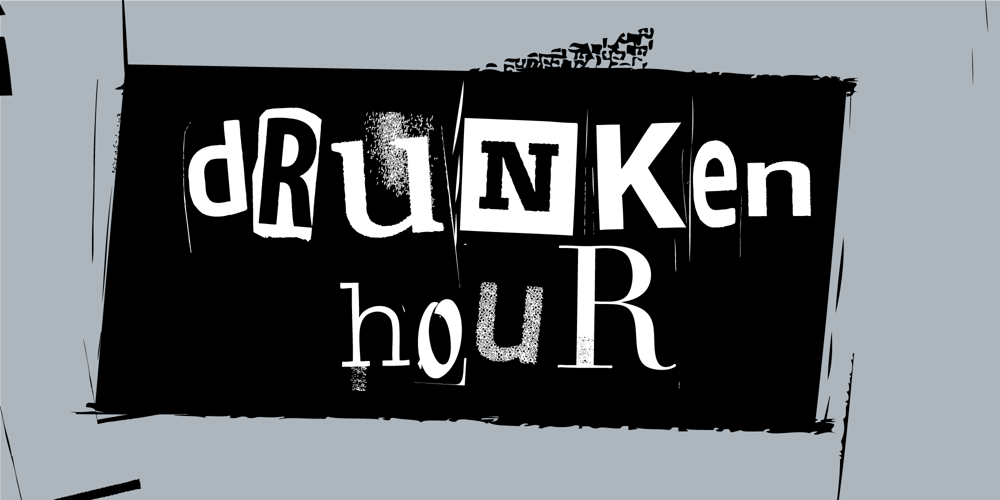
Drunken Hour Font Family was designed by Jakob Fischer and published by PizzaDude.dk. Drunken Hour contains 1 styles and family package options. Drunken Hour is not your everyday-ransom-note font! It has autoligatures for both double numbers and letters, and a good handful of the most common letter combinations…even the accented characters has got their own unique look! Well, that means you can make your next punk-grunge project look like YOU actually did all the cutting of letters! 🙂 You will need to use OpenType supporting applications to use the autoligatures.